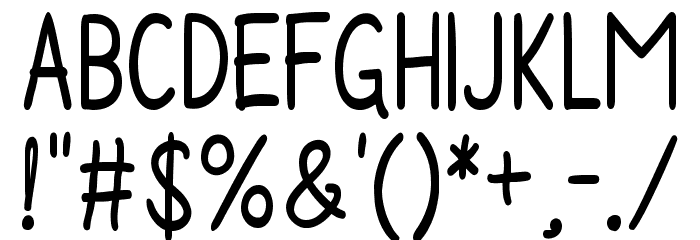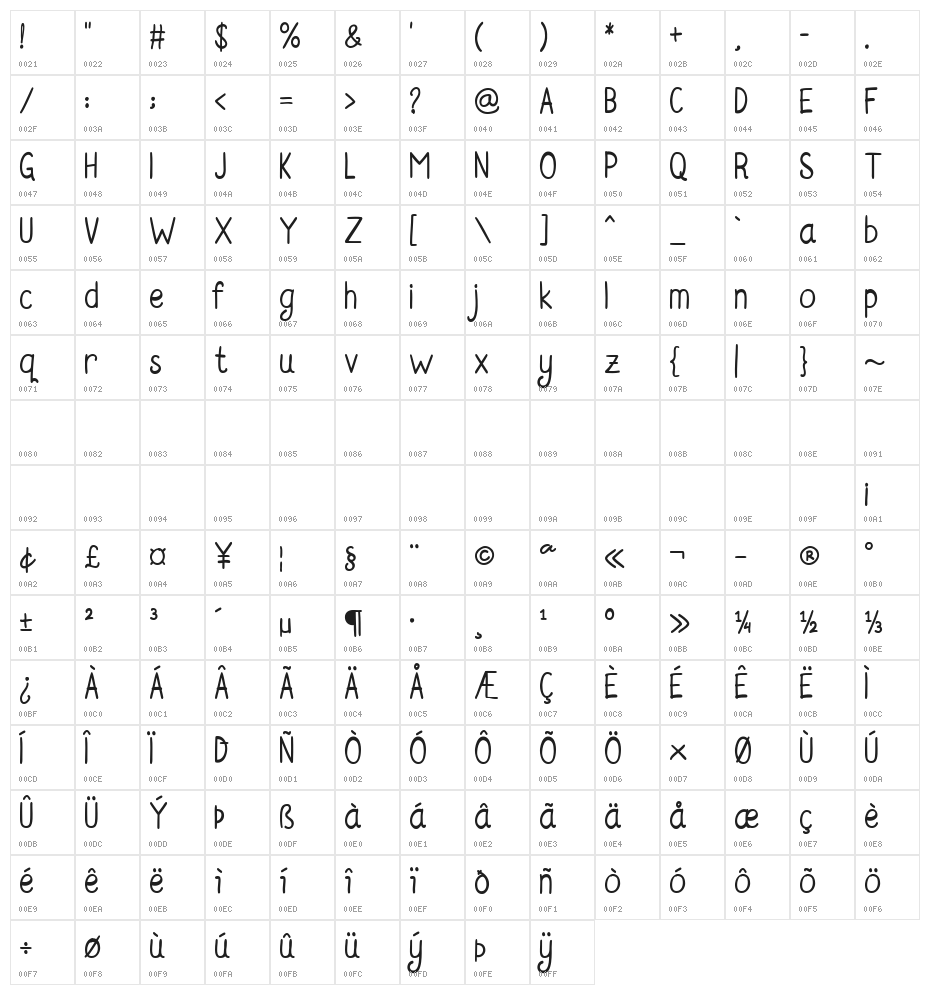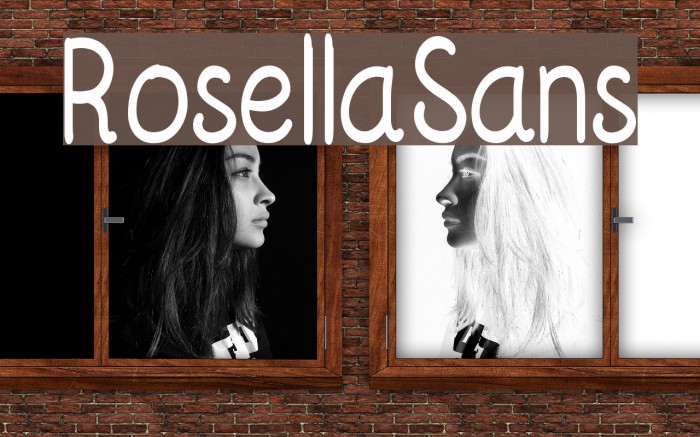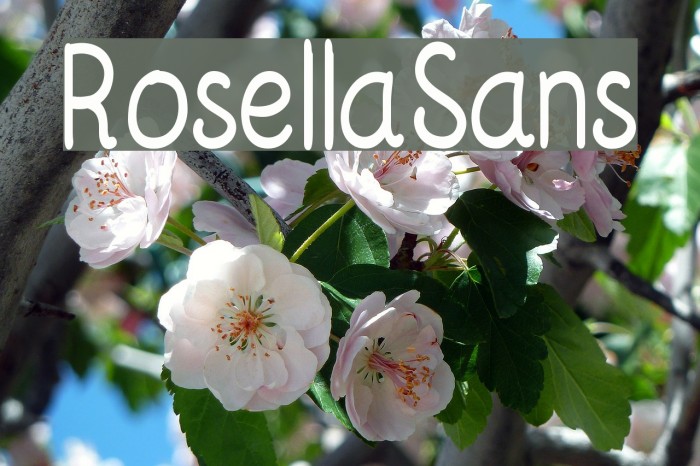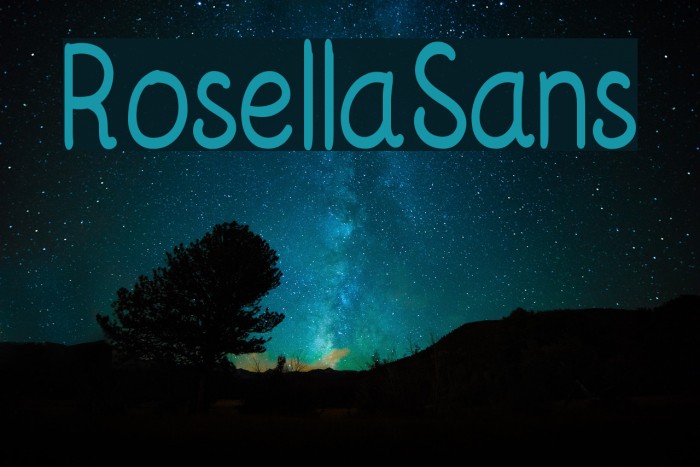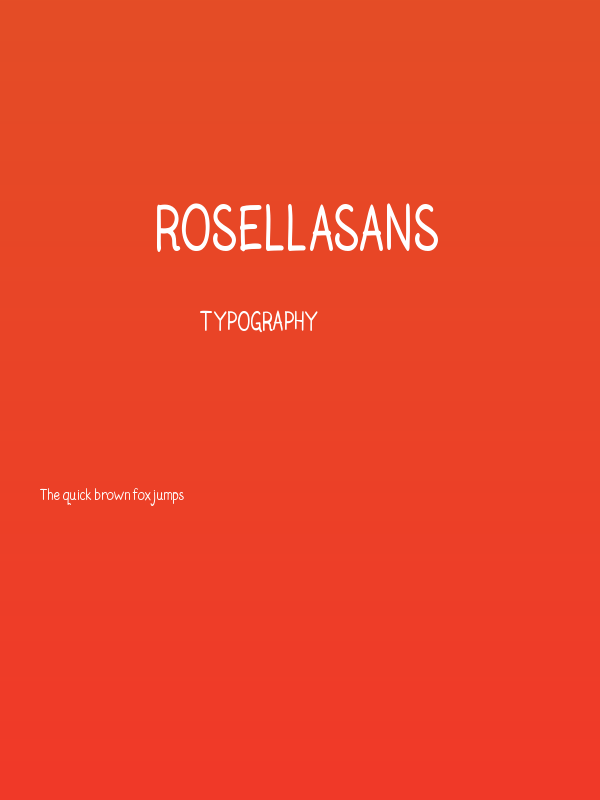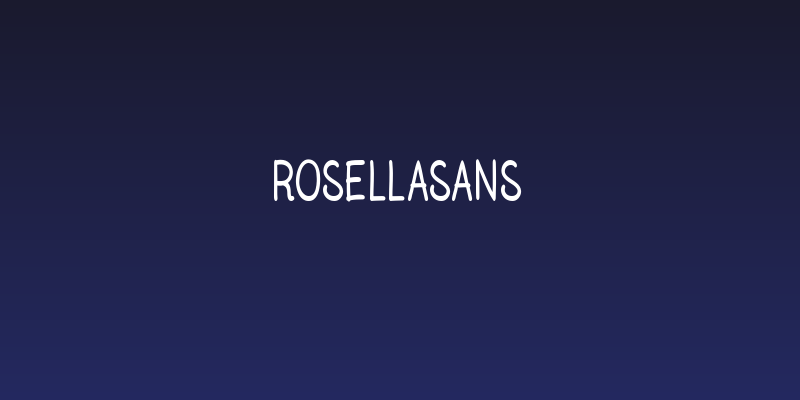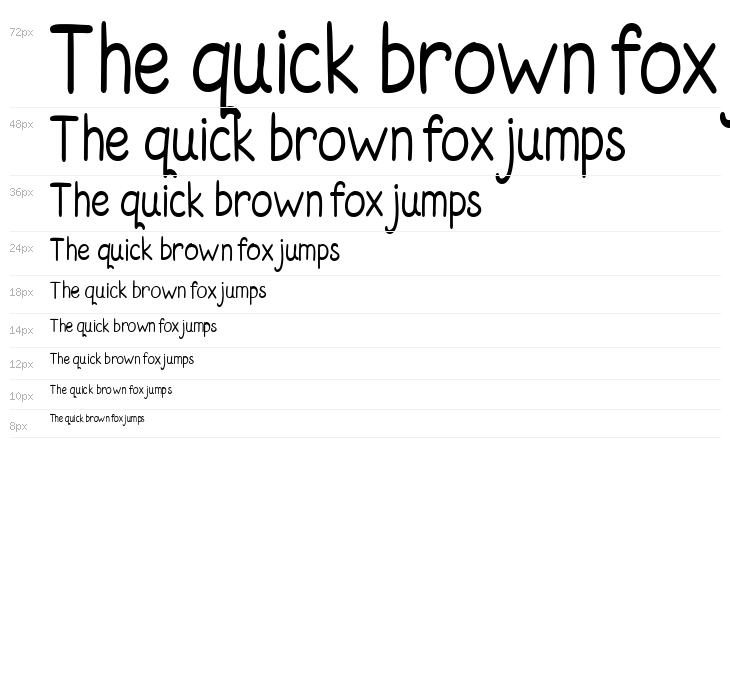
RosellaSans Font
RosellaSans Description
This font features a playful and casual style with rounded edges and a hand-drawn appearance. The characters are evenly spaced, providing a clean and approachable look. The uppercase and lowercase letters maintain a consistent height, contributing to its legibility. The font includes a full set of numerals and a variety of special characters, making it versatile for different uses. Its informal and friendly design is suitable for projects that aim to convey warmth and approachability.
| Use Case | Headlines, Informal text, Branding |
| Proposed Projects | Ideal for children's books, greeting cards, casual branding, and social media graphics. |